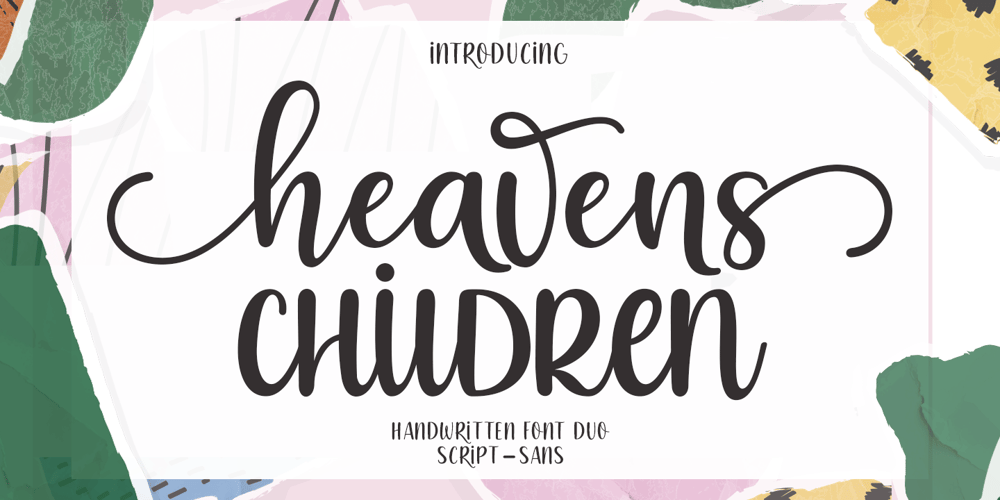
Heavens Cildren Script Font Family was designed by Mur Zani and published by Zane Studio. Heavens Cildren Script contains 2 styles and family package options. Duo Heavens Children Font is a script font that contains over 450 alternatives, is very easy to play, and the best part:You also have lots of illustrations to play with, not to mention various arrows you can toggle at the start and end of each word!